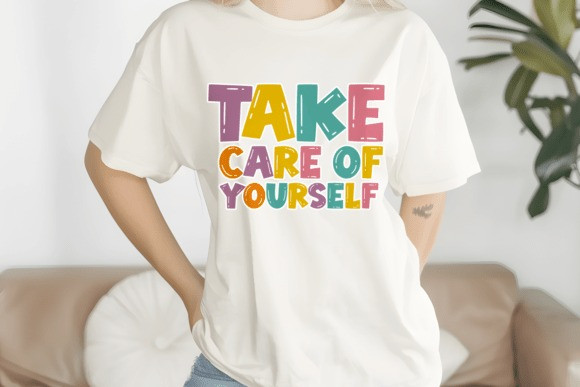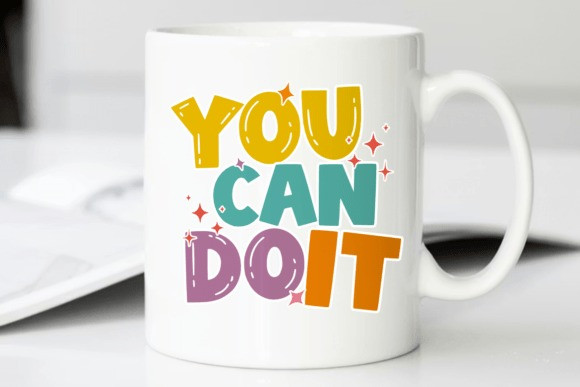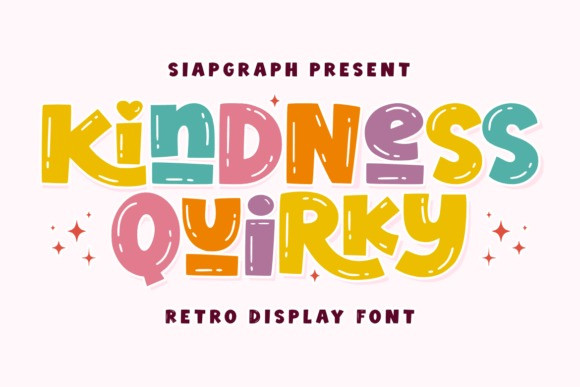
Kindness Quirky Font
Kindness Quirky Font a adorable and quirky retro display font that exudes playfulness! Its soft curves and bold appearance are perfect for creating eye-catching headlines, posters, social media graphics, and branding. Add a dreamy touch to your designs with this delightful font that’s both fun and versatile.